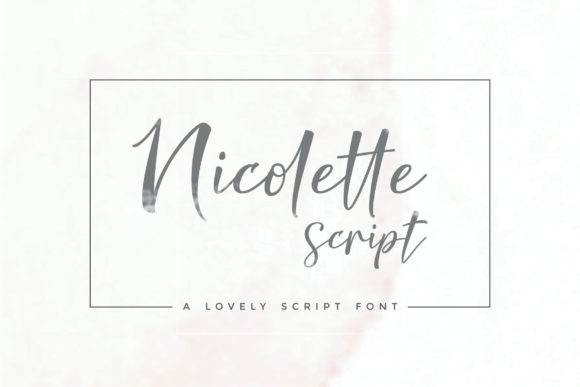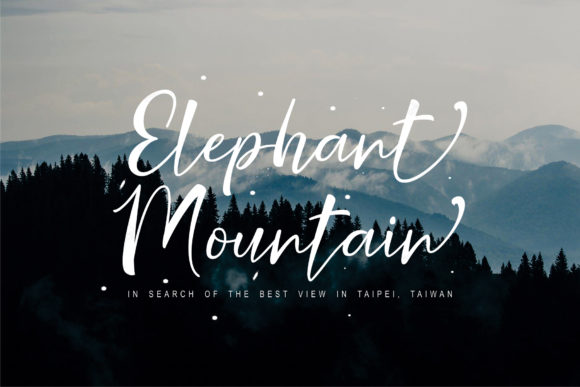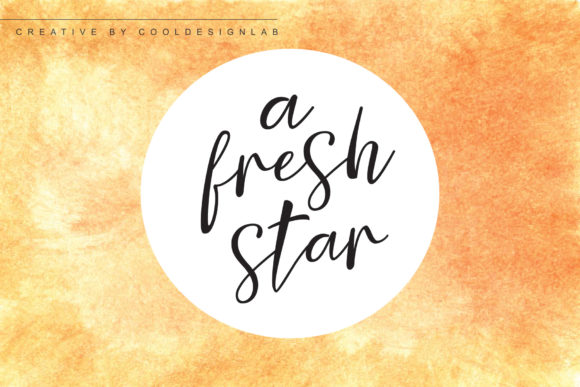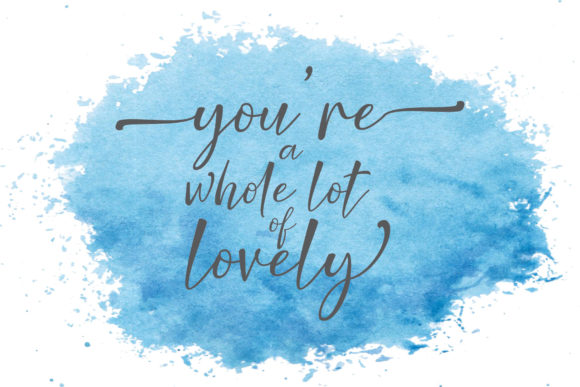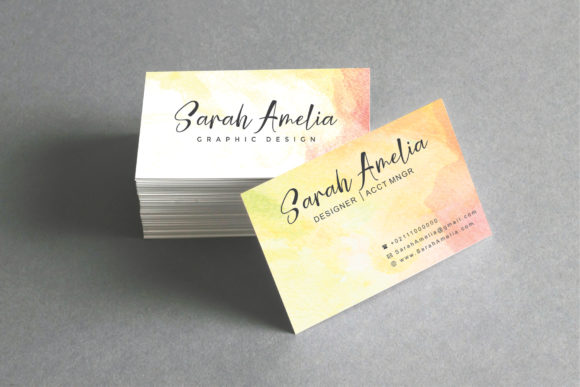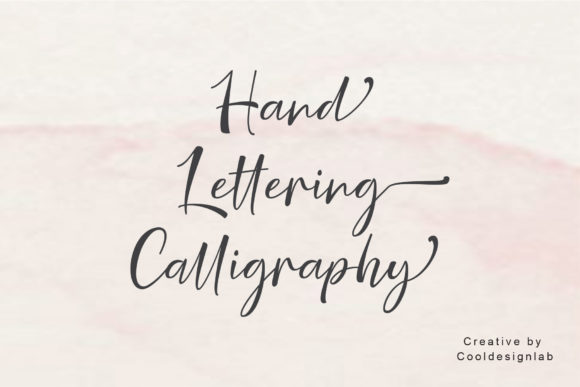
Nicolette Script Font
About Nicolette Script Font
The Nicolette is a modern handwritten font. It includes amazing front and back swashes which can be used to add an elegant touch to your designs. It can be used for branding, logos, greeting cards, invitations, titles, signatures, and much more!